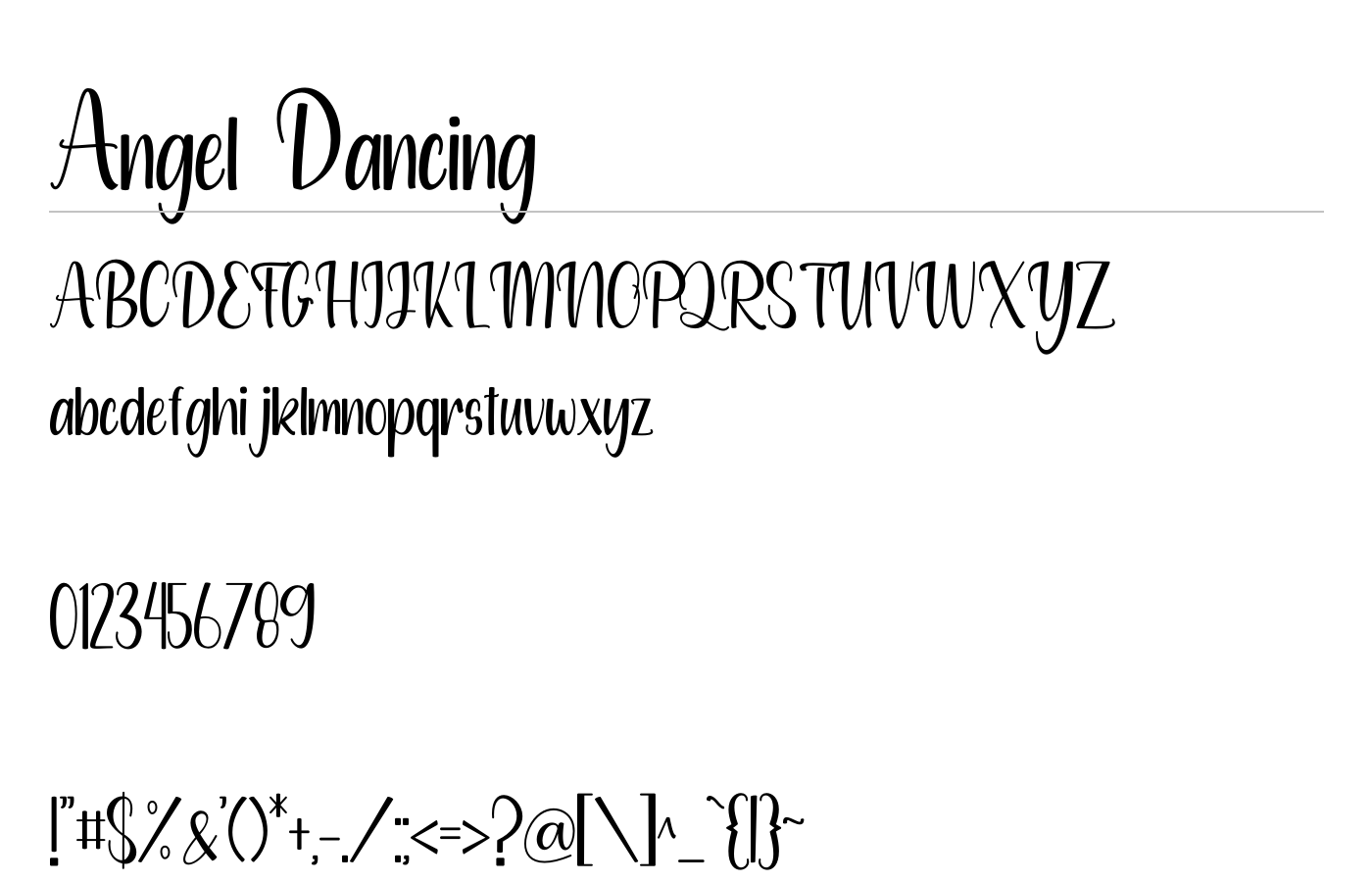
Angel Dancing is a graceful handwritten script font with slender, flowing letterforms that convey a whimsical and elegant charm. Its tall, narrow characters and subtle stroke variations make it ideal for adding a stylish yet approachable touch to invitations, branding, and creative projects where a personal, artistic flair is desired.
Angel Dancing Font
About Angel Dancing Font